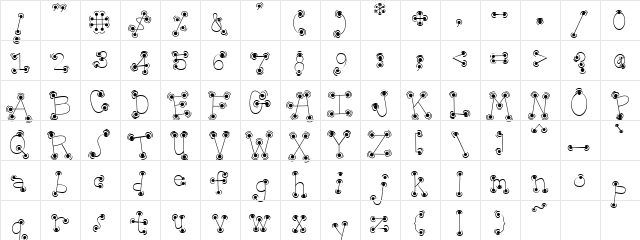
PC Round About Regular
Design Context for PC Round About Typeface
PC Round About softens its letterforms with rounded terminals, giving it an approachable, friendly quality that works well in consumer-facing and digital contexts.
Well-suited to UI design, mobile interfaces, and any brand that wants approachability without sacrificing clarity.
Font Pairing: Pairs well with a rounded or humanist sans for body copy, maintaining the friendly tone without relying on PC Round About to carry extended reading.
Pro Tip: Use PC Round About for UI elements, app interfaces, and anywhere a friendly, approachable tone needs to be maintained without sacrificing clarity.